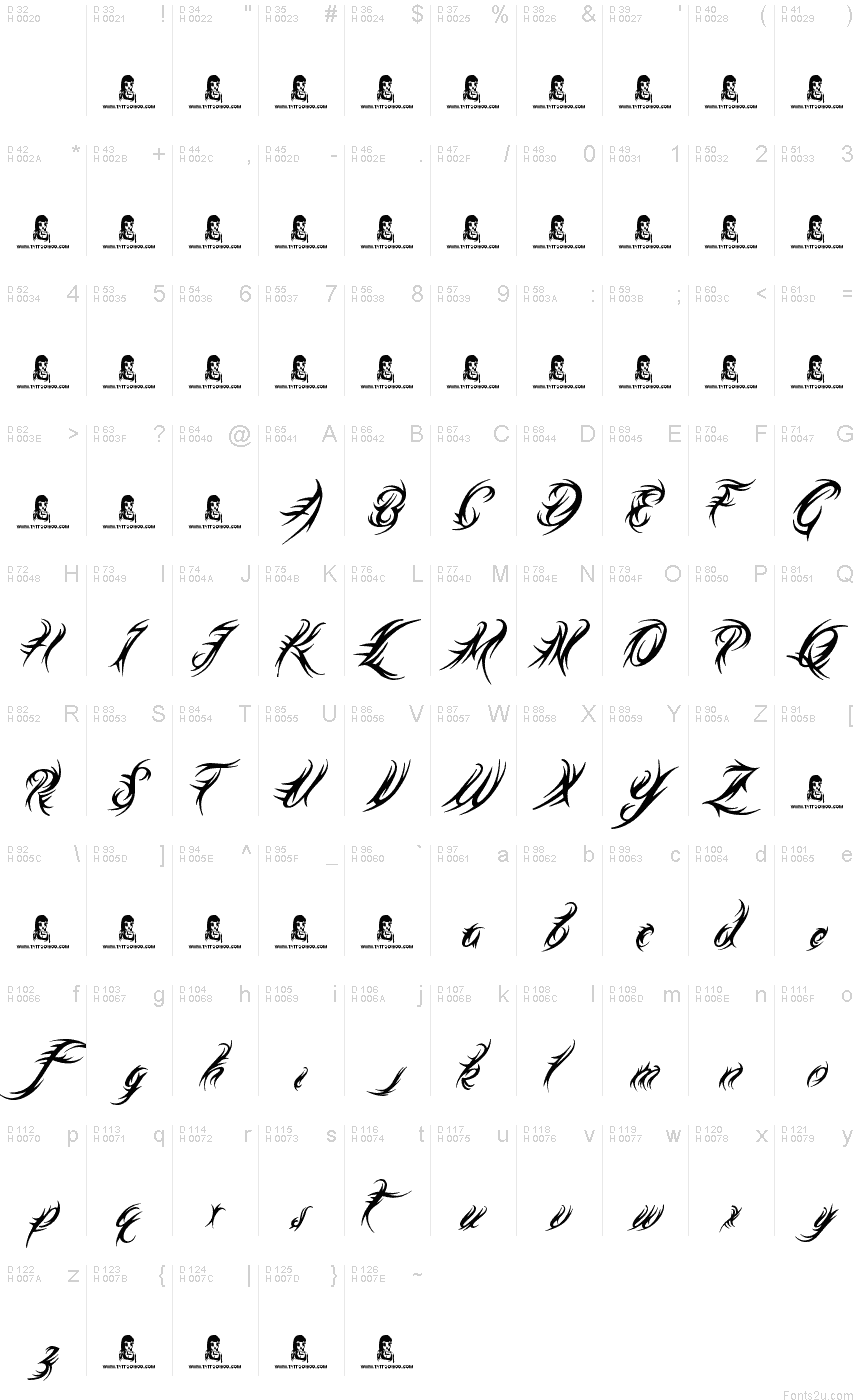
Medieval Queen by TattooWoo.com is a free calligraphic script shaped around an aggressively ornamental, tattoo-inspired silhouette. Broad strokes coil into sharp hooks, long slashes, and flame-like flourishes, forming a dense, interlocked texture far removed from the restraint of traditional formal hands.
Tattoo studios and alternative fashion labels could use it for logos, merchandise, packaging, and event posters, especially when the imagery draws on gothic, biker, or dark fantasy themes. Its strongest role is a tattoo-style emblem that turns lettering into ornament.